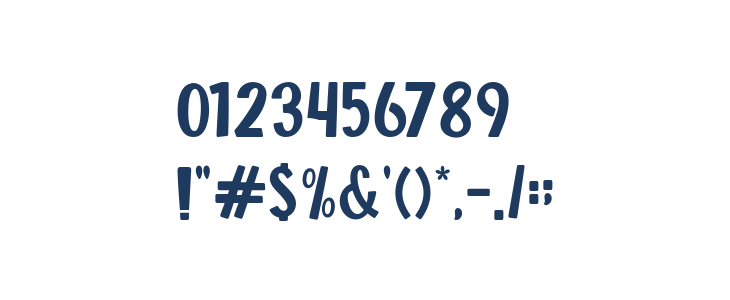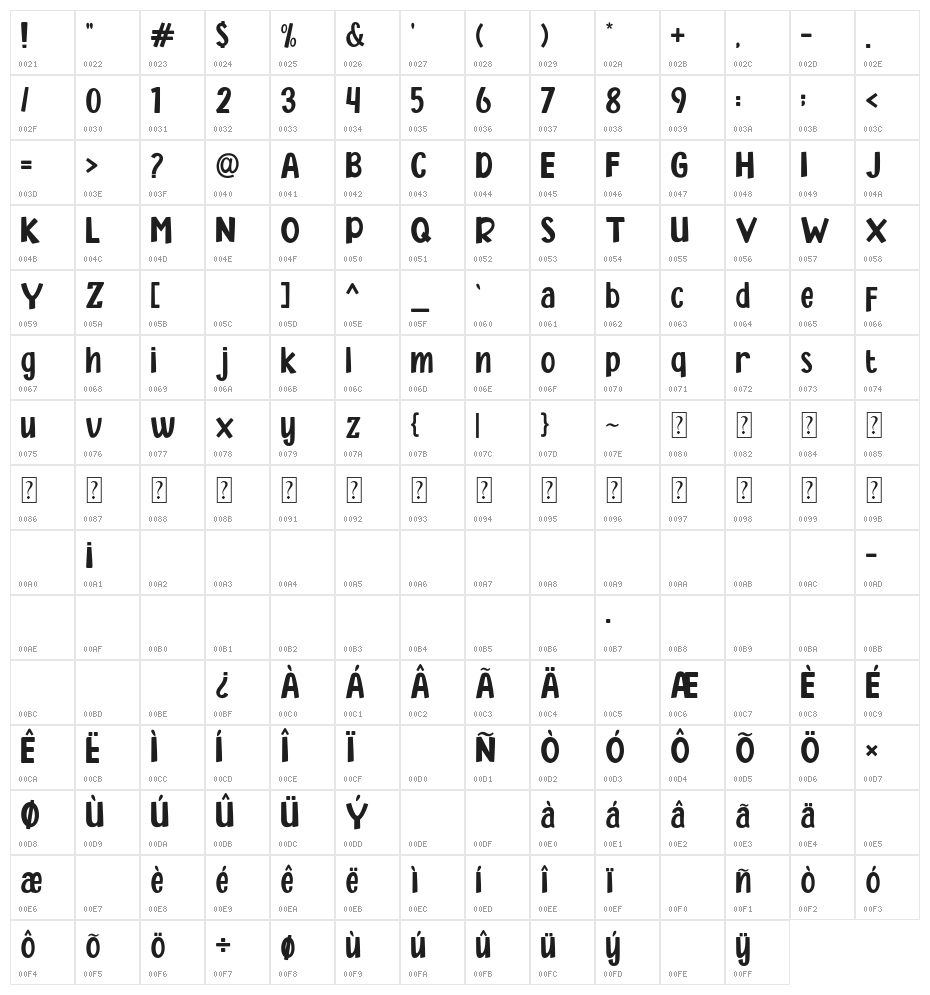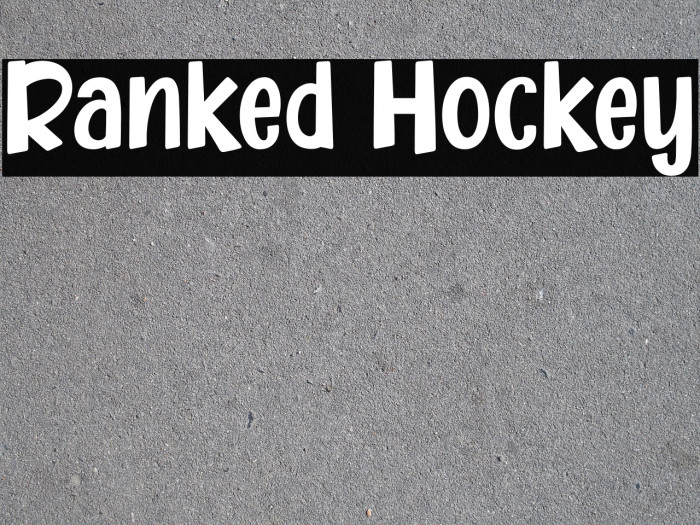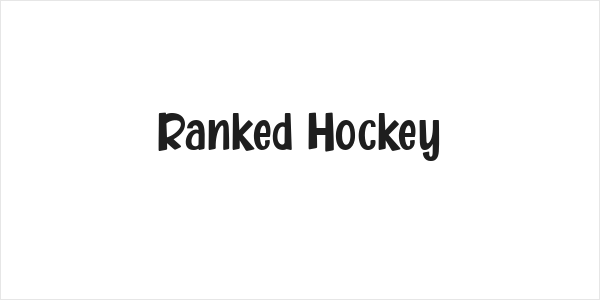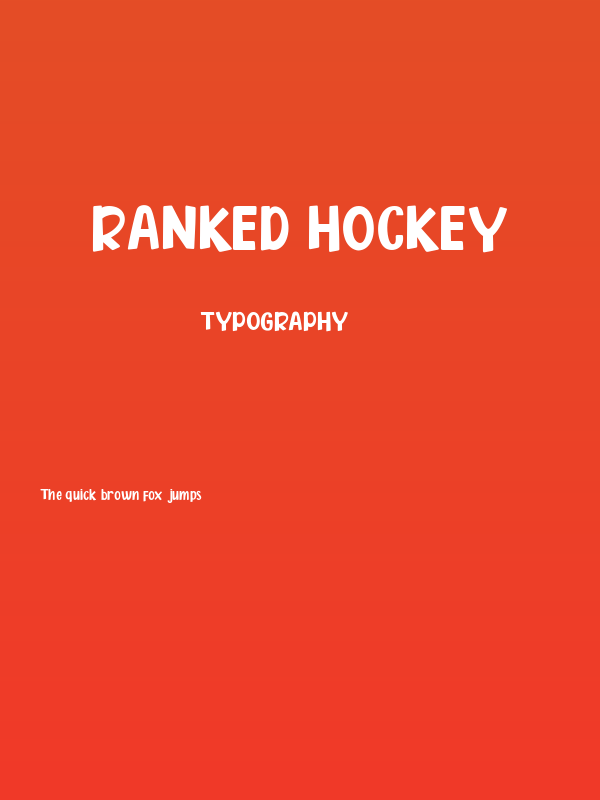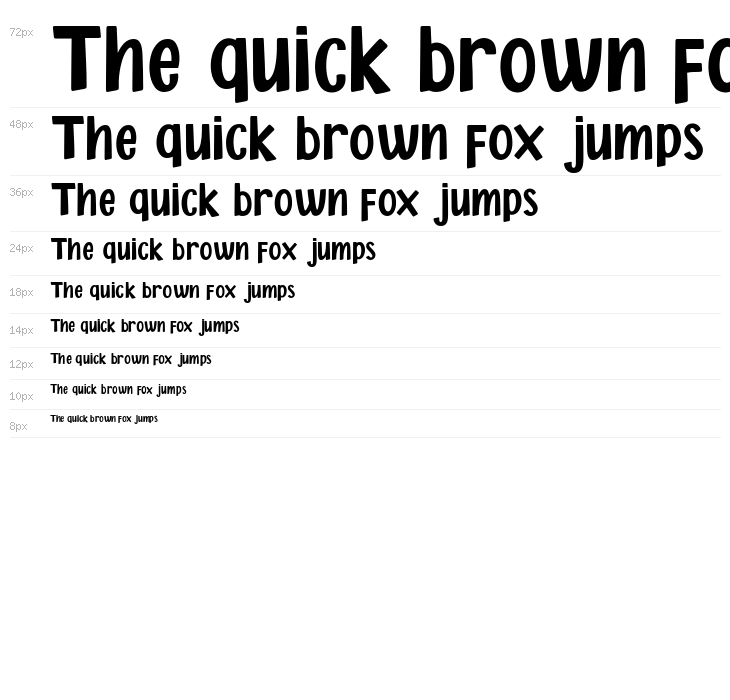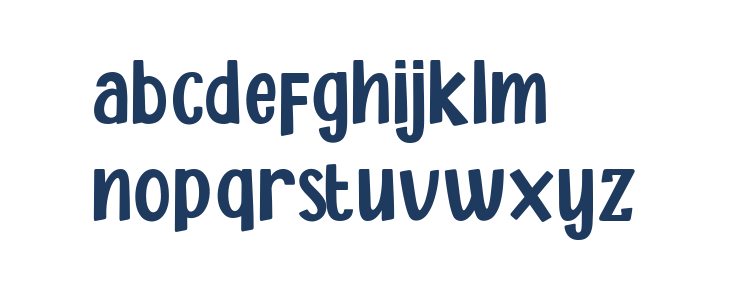
Ranked Hockey Font
Ranked Hockey Description
This font features a playful and bold style, characterized by its thick, rounded strokes and slightly irregular shapes. The uppercase letters are robust and commanding, while the lowercase letters maintain a friendly and approachable appearance. The numbers are consistent with the overall style, ensuring readability and cohesion. Special characters are designed to match the playful nature of the font, making it suitable for creative and informal applications. The font's unique charm lies in its ability to convey a sense of fun and energy, making it ideal for projects that require a lively and engaging typeface.
| Proposed Projects | Ideal for children's books, playful branding, event posters, and social media graphics. |